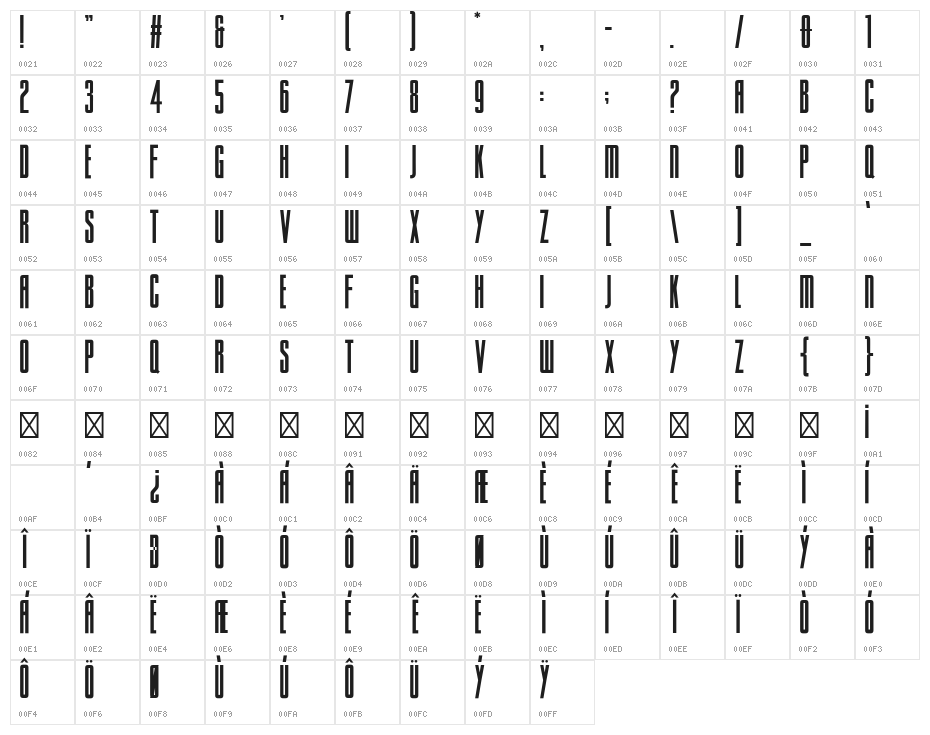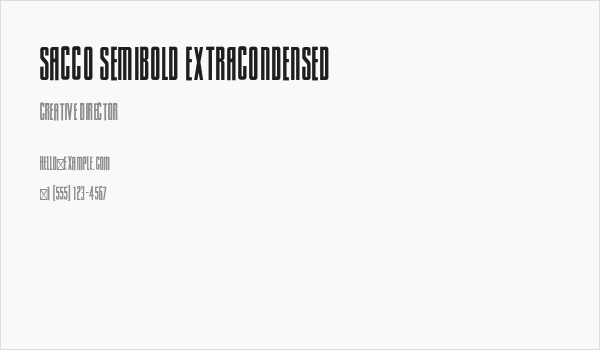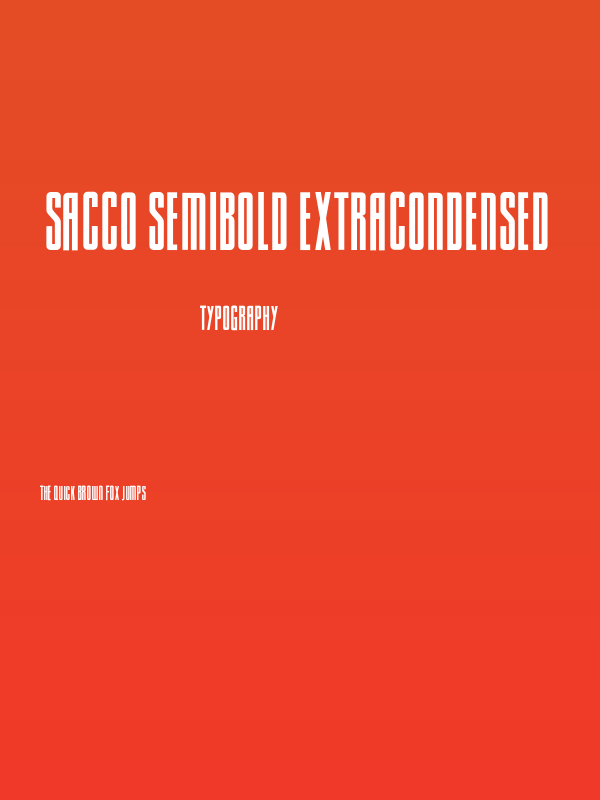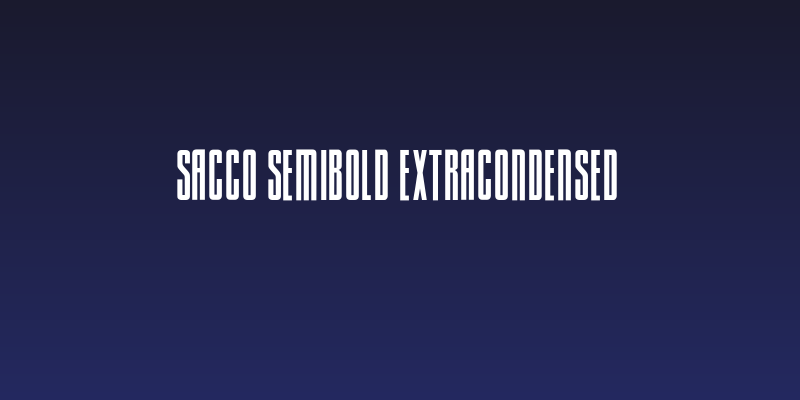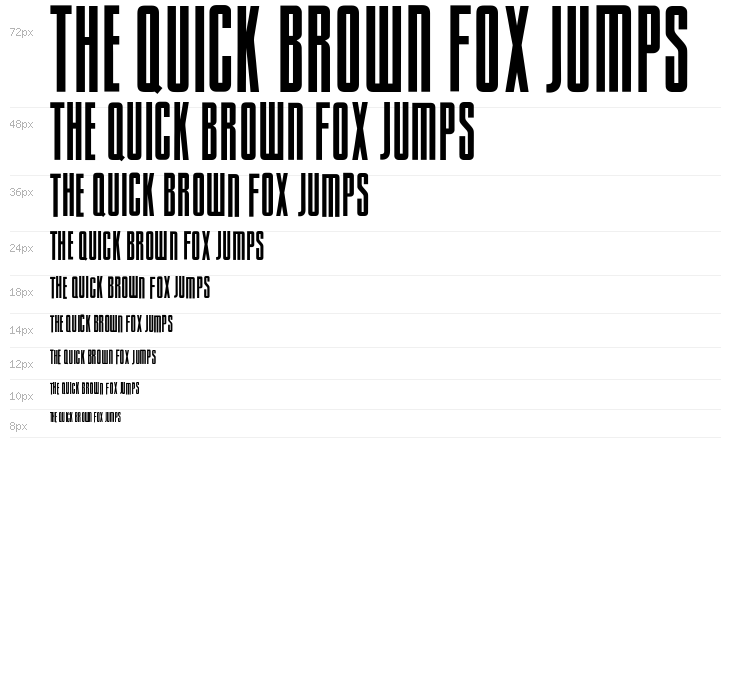
Sacco SemiBold ExtraCondensed Font
Sacco SemiBold ExtraCondensed Description
This font features a strikingly tall and narrow design, characterized by its extra condensed letterforms. The vertical emphasis is pronounced, with minimal spacing between characters, creating a compact and impactful appearance. The semi-bold weight adds a sense of strength and presence, making it ideal for attention-grabbing headlines or titles. The uniform stroke width throughout the characters contributes to a clean and modern aesthetic, while the lack of serifs enhances its contemporary feel. The font's geometric structure and sharp edges give it a sleek and professional look, suitable for a variety of design applications.
| Proposed Projects | Ideal for posters, magazine covers, branding, and advertising where a bold statement is needed. |